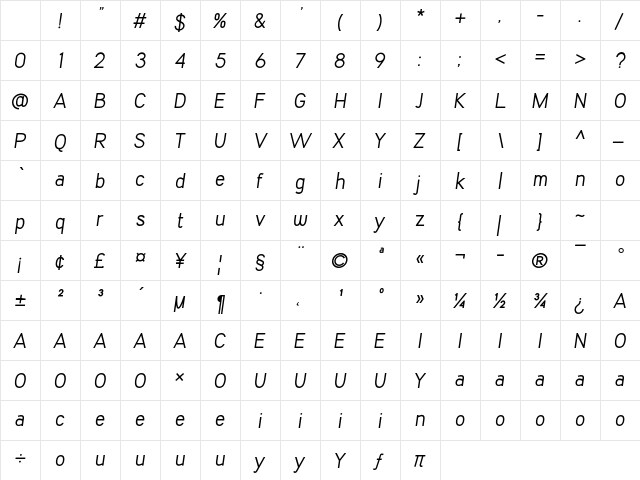
Kalyant Demo is a composed and adaptable typeface that performs quietly and consistently across a wide range of design contexts. The slanted form adds forward momentum and visual energy.
Pro Tip: Use Kalyant Demo for emphasis, pull quotes, and subheadings where its slanted energy can add rhythm to the layout.